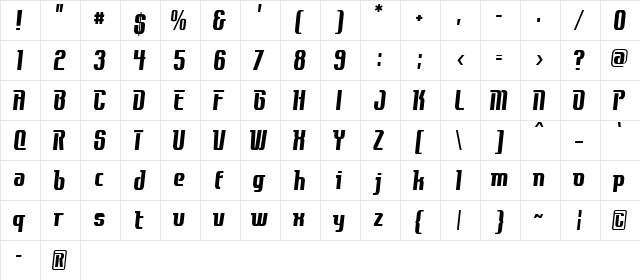
Contact Bold Font Preview
Contact Bold
Contact Bold Font Details
Design Context for Contact Typeface
Contact takes a measured approach to typography — its balanced proportions and neutral character make it a reliable workhorse for both digital and print work. Its bold stroke weight gives it real presence on the page.